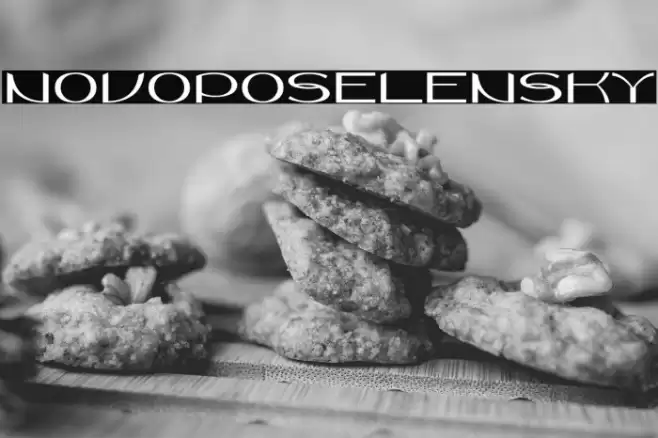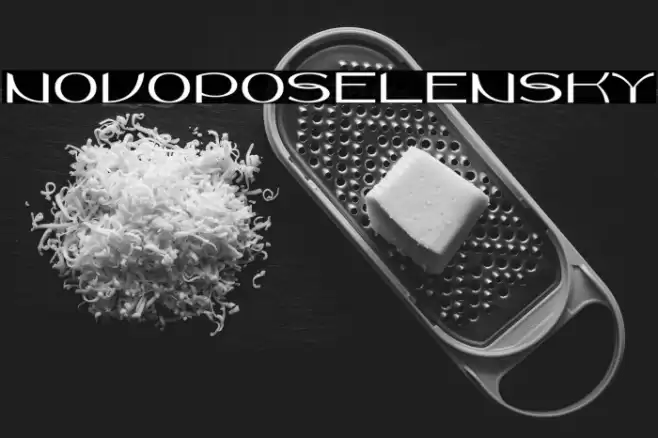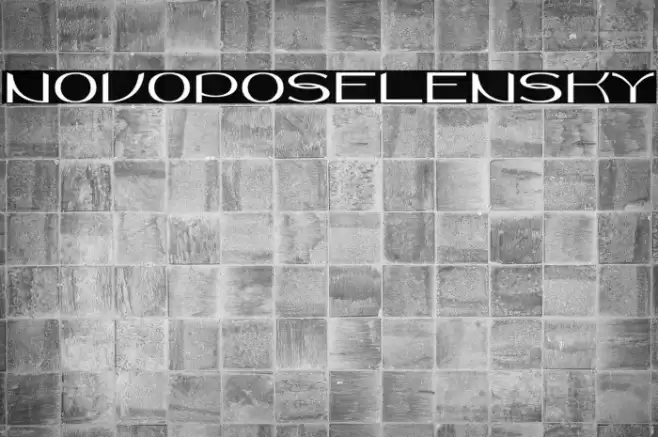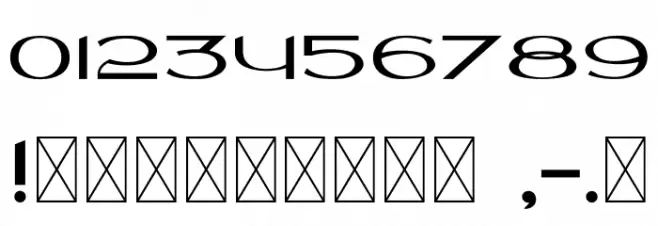
Novoposelensky Font
Novoposelensky Description
This font features a modern and futuristic design with clean, geometric lines and a distinctive style. The uppercase letters are bold and angular, with unique cuts and curves that give them a sleek appearance. The lowercase letters maintain a similar aesthetic, providing a cohesive look across all characters. Numbers are designed with the same attention to detail, ensuring readability while maintaining the font's overall style. Special characters are included, adding versatility for various design needs. The font's sharp edges and contemporary feel make it ideal for projects that require a modern touch.
A modern, geometric font with sleek, angular lines and a futuristic style from Regular fonts.